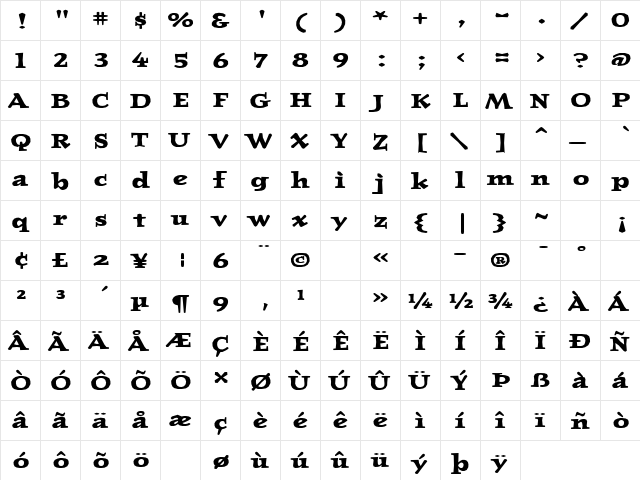
JournalUltraBoldLining Bold
Design Context for JournalUltraBoldLining Typeface
JournalUltraBoldLining is a composed and adaptable typeface that performs quietly and consistently across a wide range of design contexts. Its bold stroke weight gives it real presence on the page.